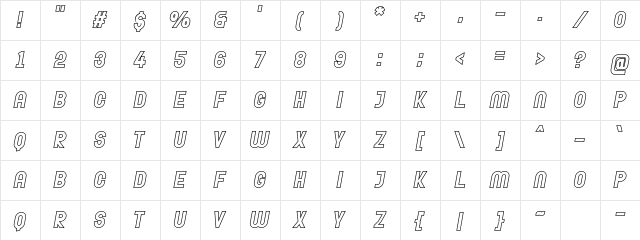
Dexoljack Hollow Italic
Style: Hollow Italic
Foundry: Shanaya Creative Studio
Designer: Wahyu Sa
Design Context for Dexoljack
Dexoljack is a composed and adaptable typeface that performs quietly and consistently across a wide range of design contexts. The slanted form adds forward momentum and visual energy.
Pro Tip: Use Dexoljack for emphasis, pull quotes, and subheadings where its slanted energy can add rhythm to the layout.